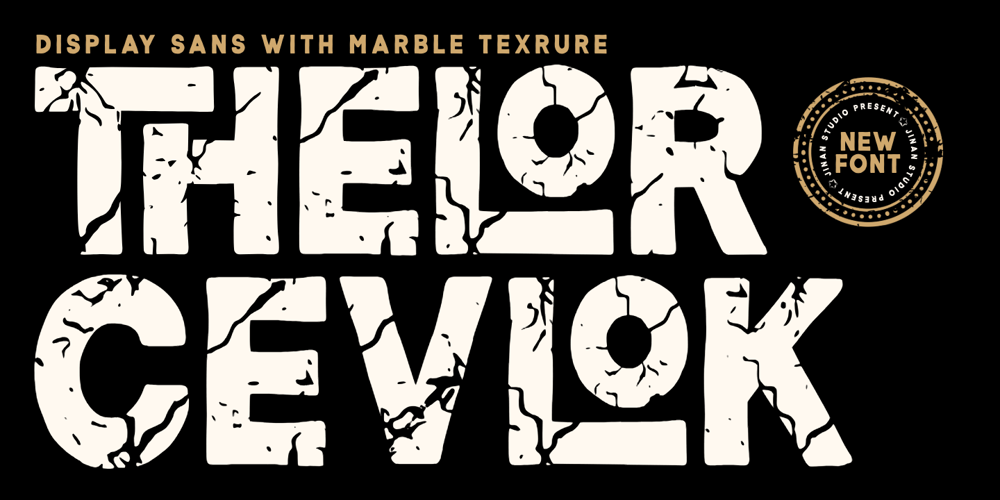
Thelor Cevlok Font Family was designed by Andi Syahdang, Ainun Jinan and published by Jinan Studio. Thelor Cevlok contains 1 styles and family package options. Introducing Thelor Cevlok – Display Sans with Marble TextureElevate your designs with the bold and unique Thelor Cevlok font. This eye-catching display sans serif features a distinctive marble texture, adding an element of rugged elegance to your projects. Perfect for vintage design, headlines, posters, branding, and more, Thelor Cevlok’s cracked, stony appearance gives your text a striking, memorable look.This new font seamlessly blends modern design with natural, organic patterns, making it ideal for creative projects that demand attention. Whether you’re designing for print or digital media, Thelor Cevlok’s strong and artistic presence ensures your message stands out.Features Allcaps Number, symbol, and punctuation Multilingual Support Some ligatures PUA encoded Ligatures will automatically replace the standard letter pairs whenever available, when using any OpenType capable software.